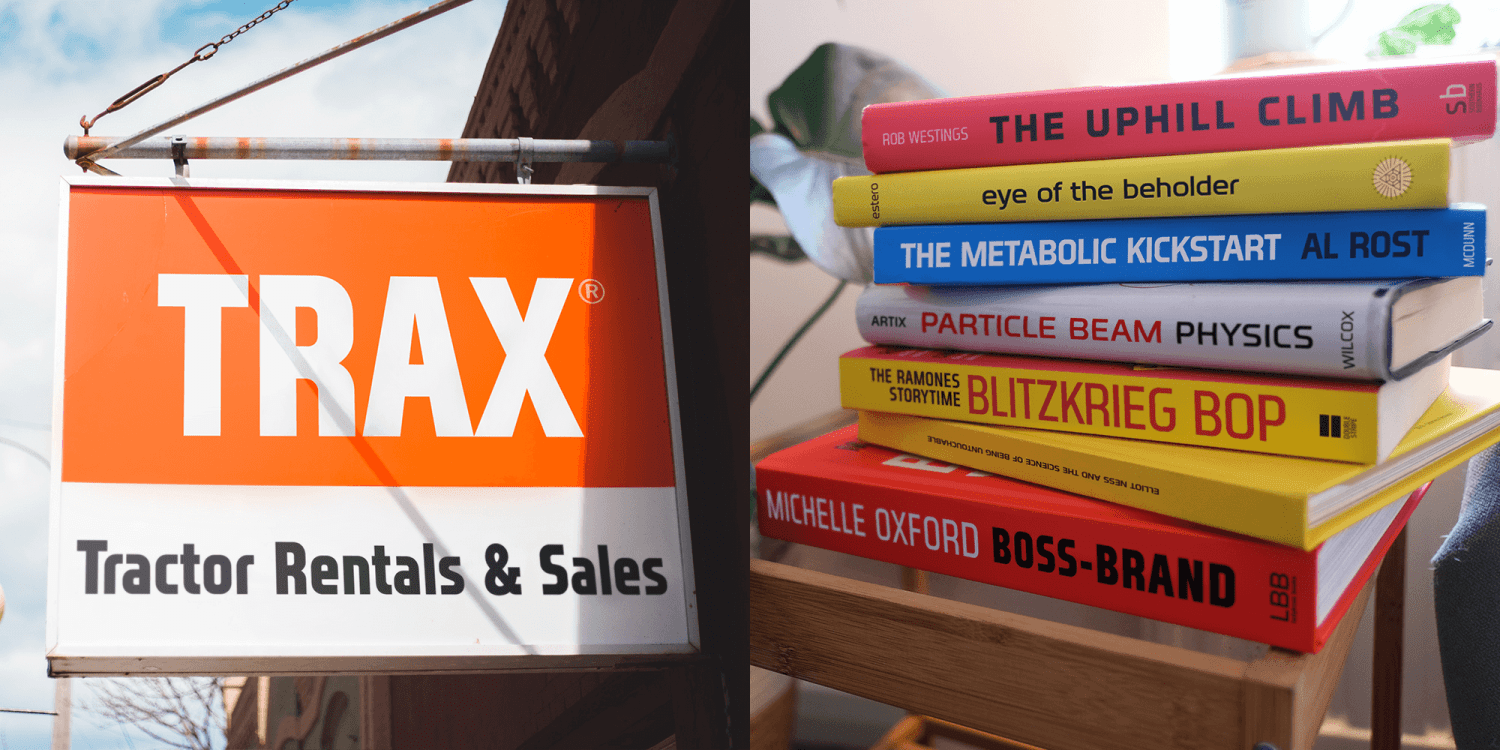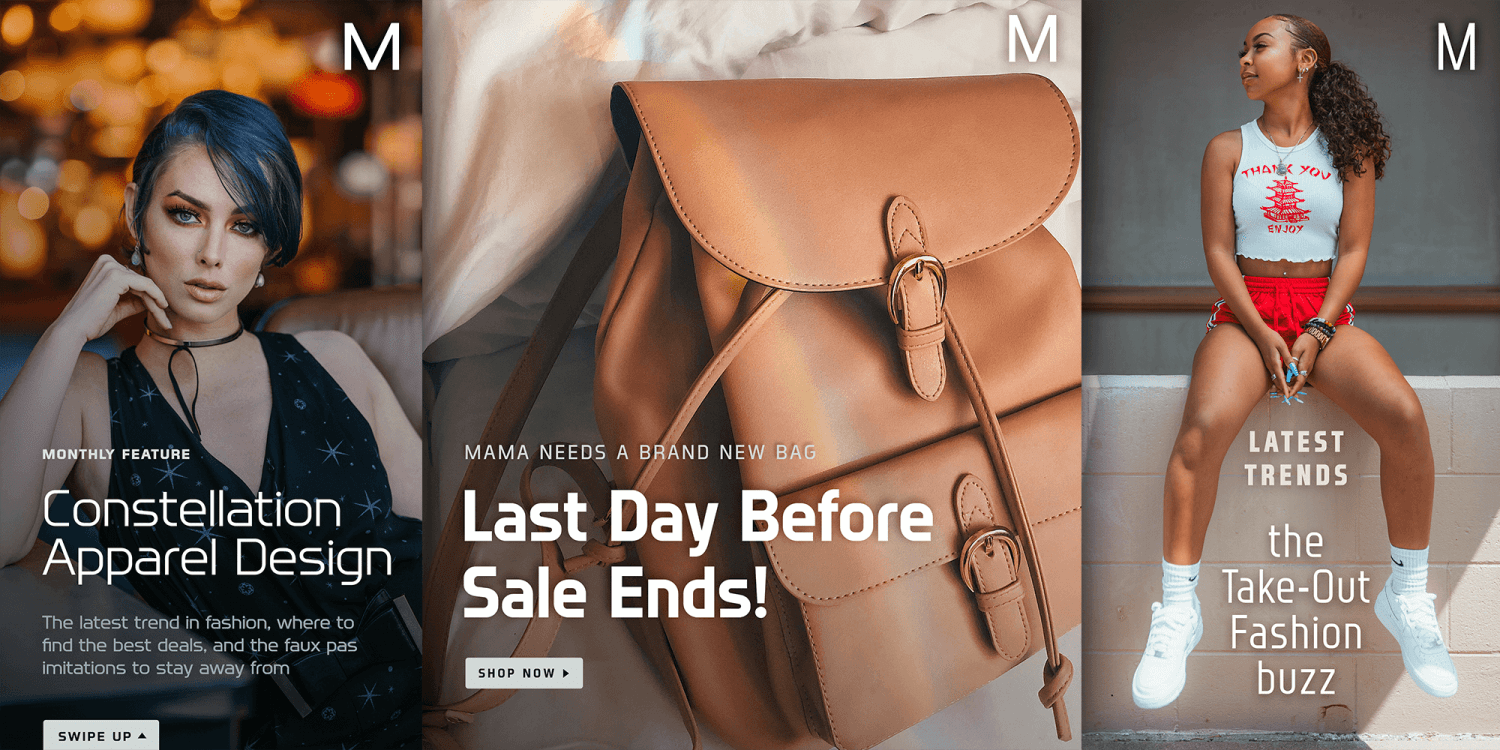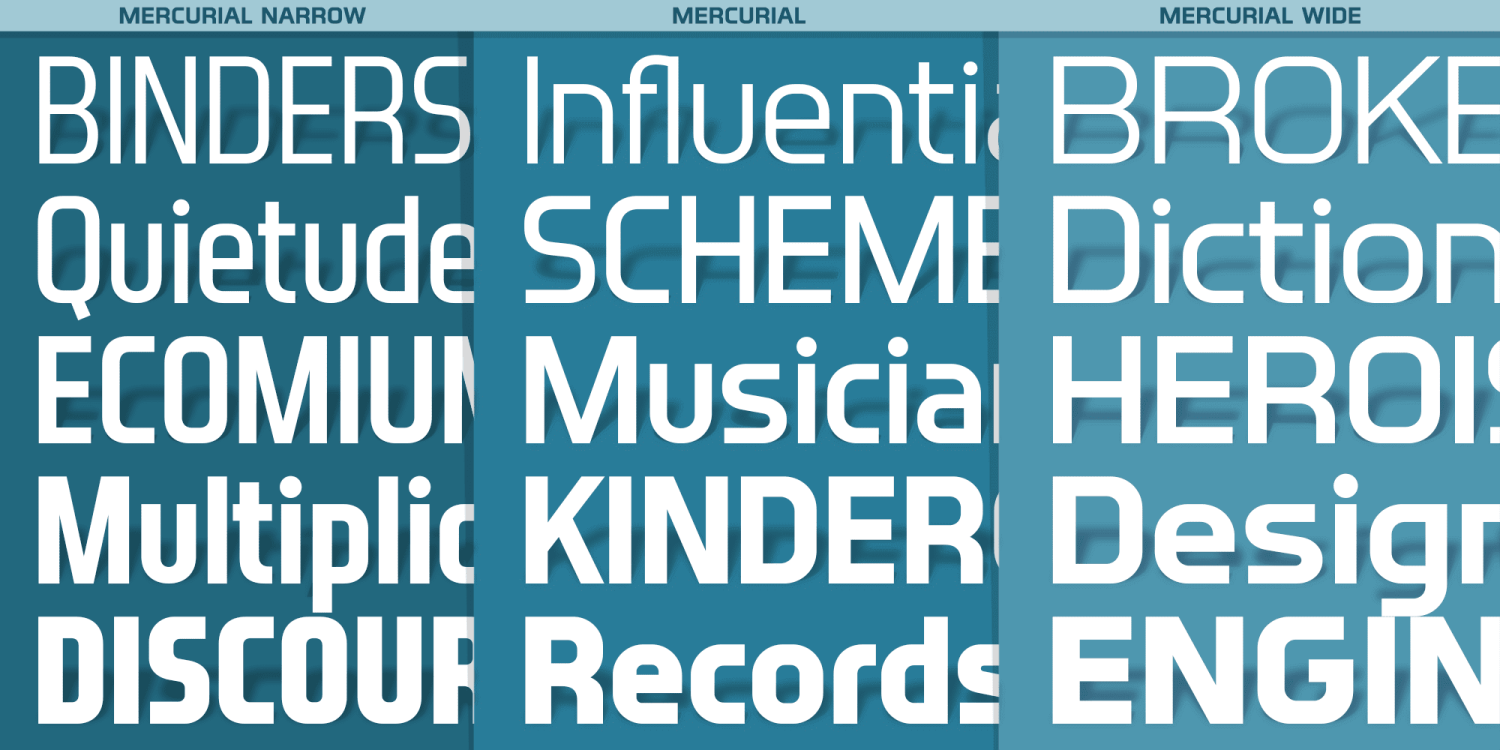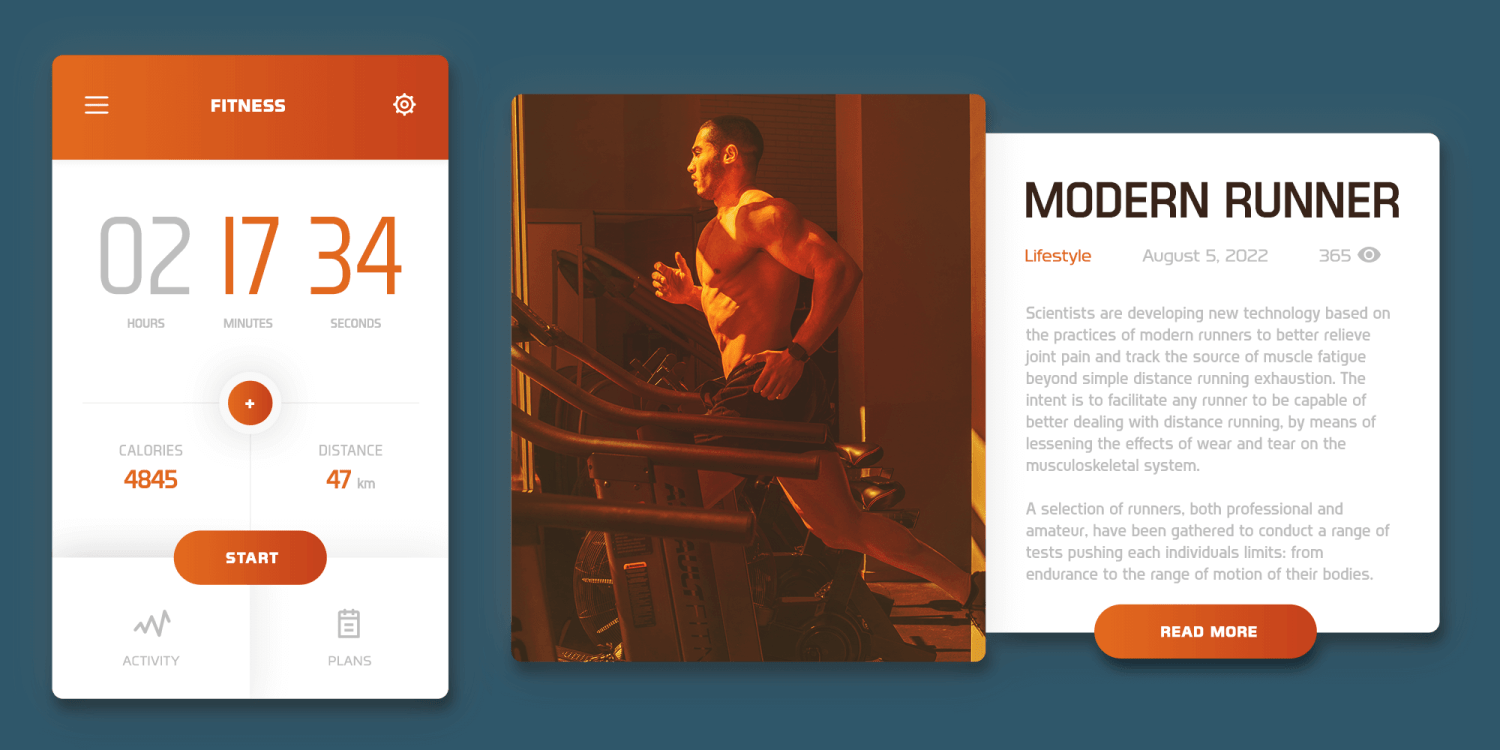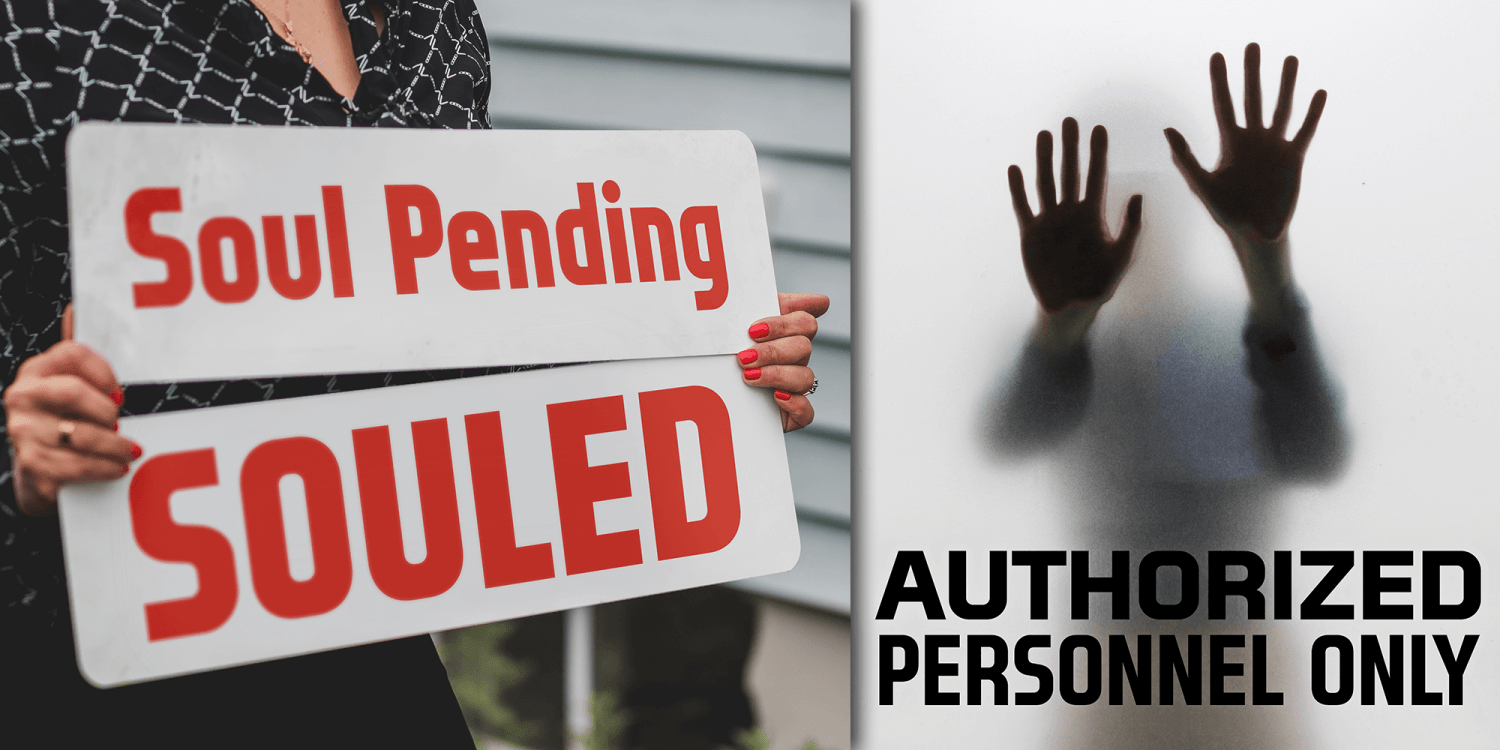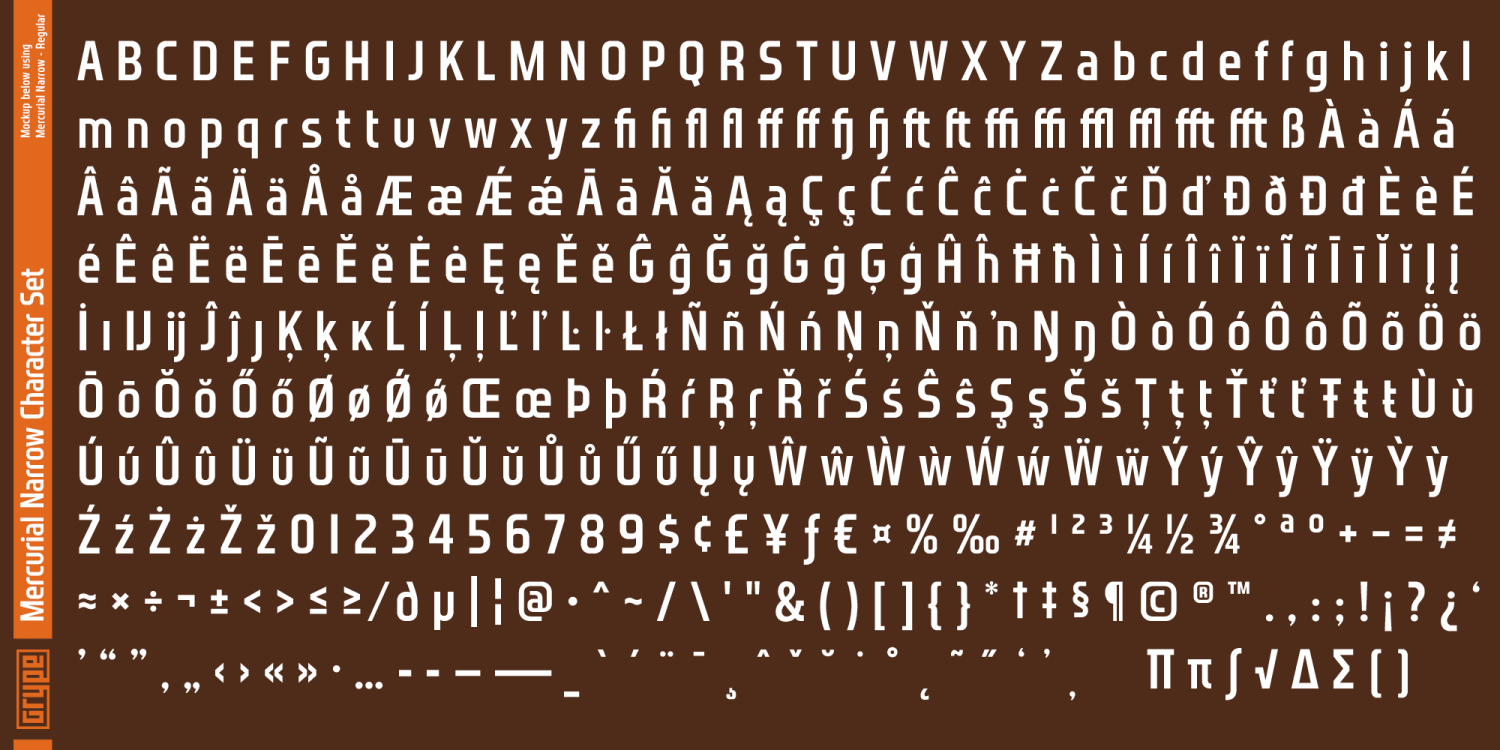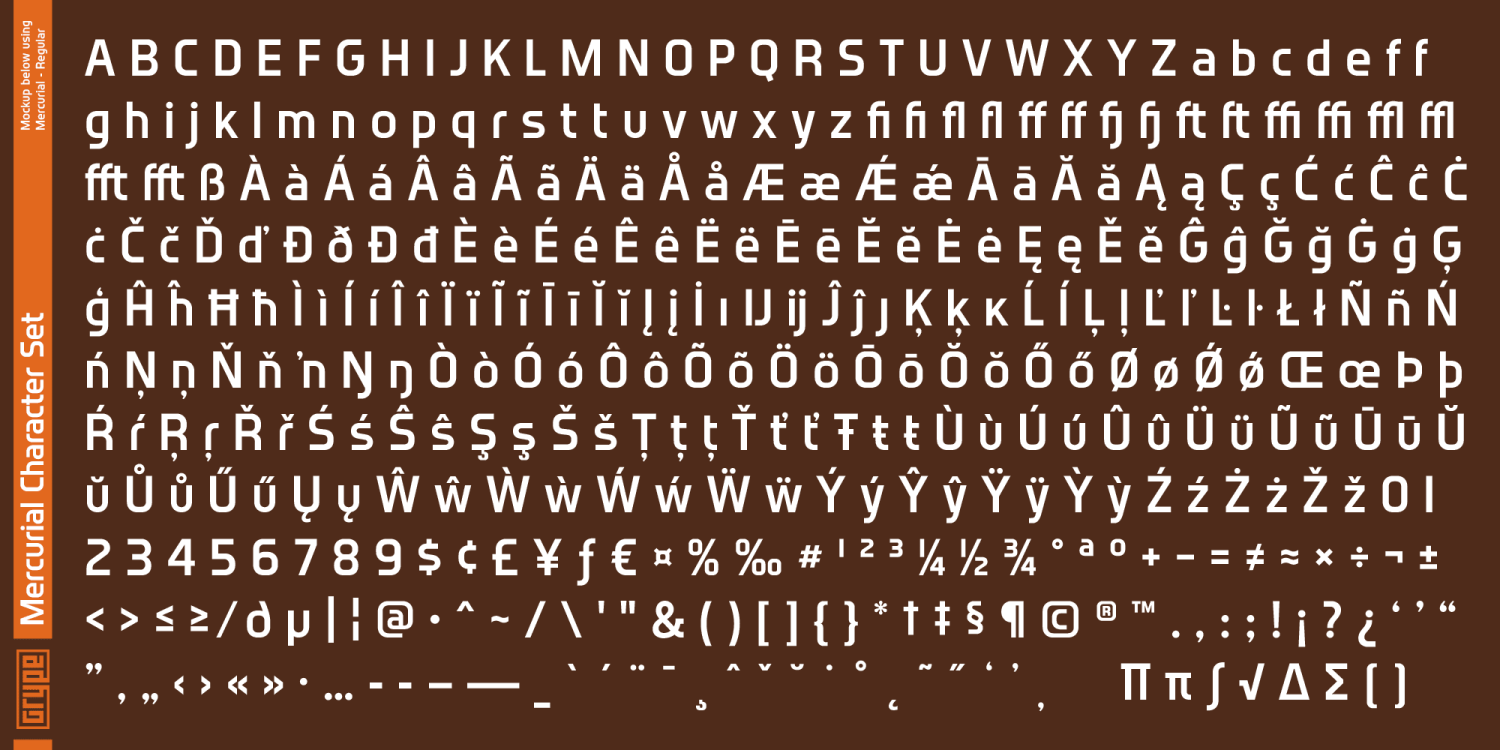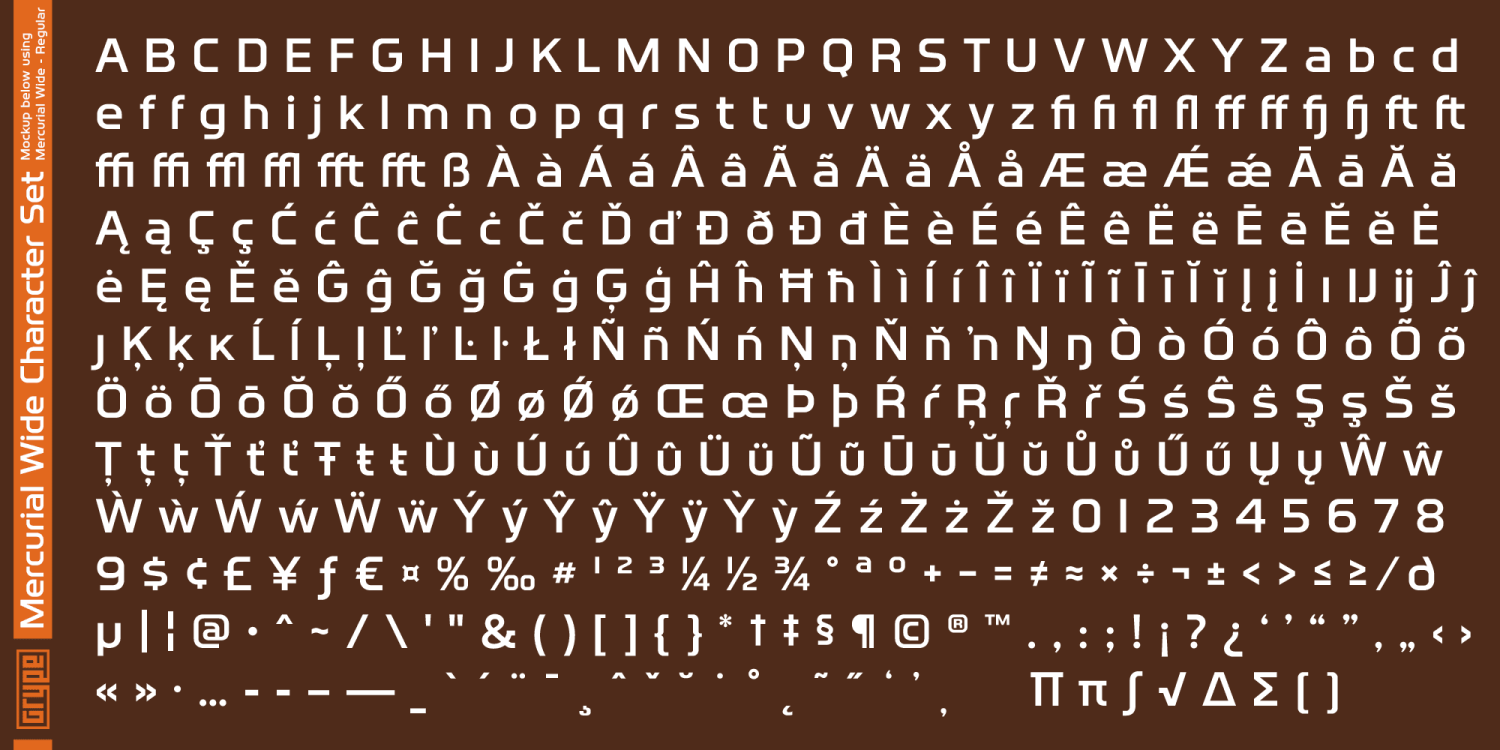
Mercurial
About Mercurial
Geometric/Technical style logotypes have been developed for car chrome labels since the early 1980\’s, but automobile companies don\’t monopolize the style by any means. During the 80\’s and 90\’s, a lot of these logos leaned towards the geometric sans styles…